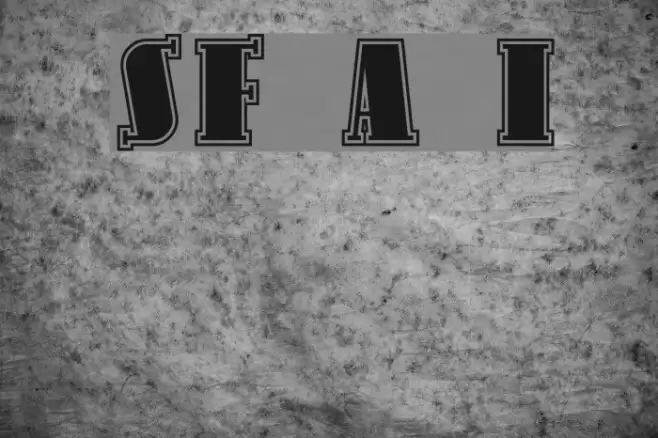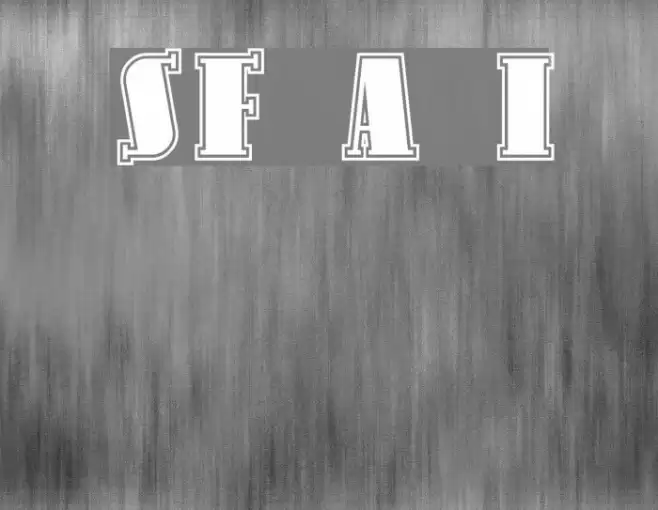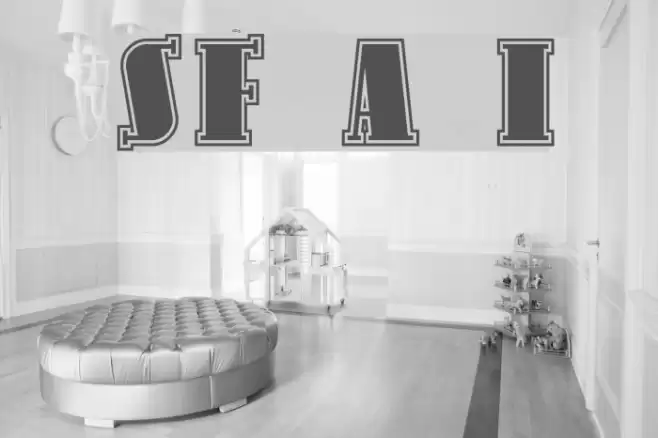
SF Avondale Inline Font
SF Avondale Inline Description
This font features a bold and striking design with an inline style that adds depth and dimension to each character. The uppercase letters are robust and commanding, while the lowercase letters maintain a consistent weight and style. The numbers are equally bold, ensuring they stand out in any context. Special characters are designed with the same inline effect, providing a cohesive look across all glyphs. The overall design is reminiscent of vintage signage, with a modern twist that makes it suitable for contemporary use. Its unique inline feature creates a shadow effect, enhancing readability and visual interest.
A bold, inline font with a vintage yet modern aesthetic from Uncategorized fonts.
- Proposed Projects: Ideal for branding, posters, signage, and any project requiring a bold, eye-catching typeface.
- Overall Style: Vintage